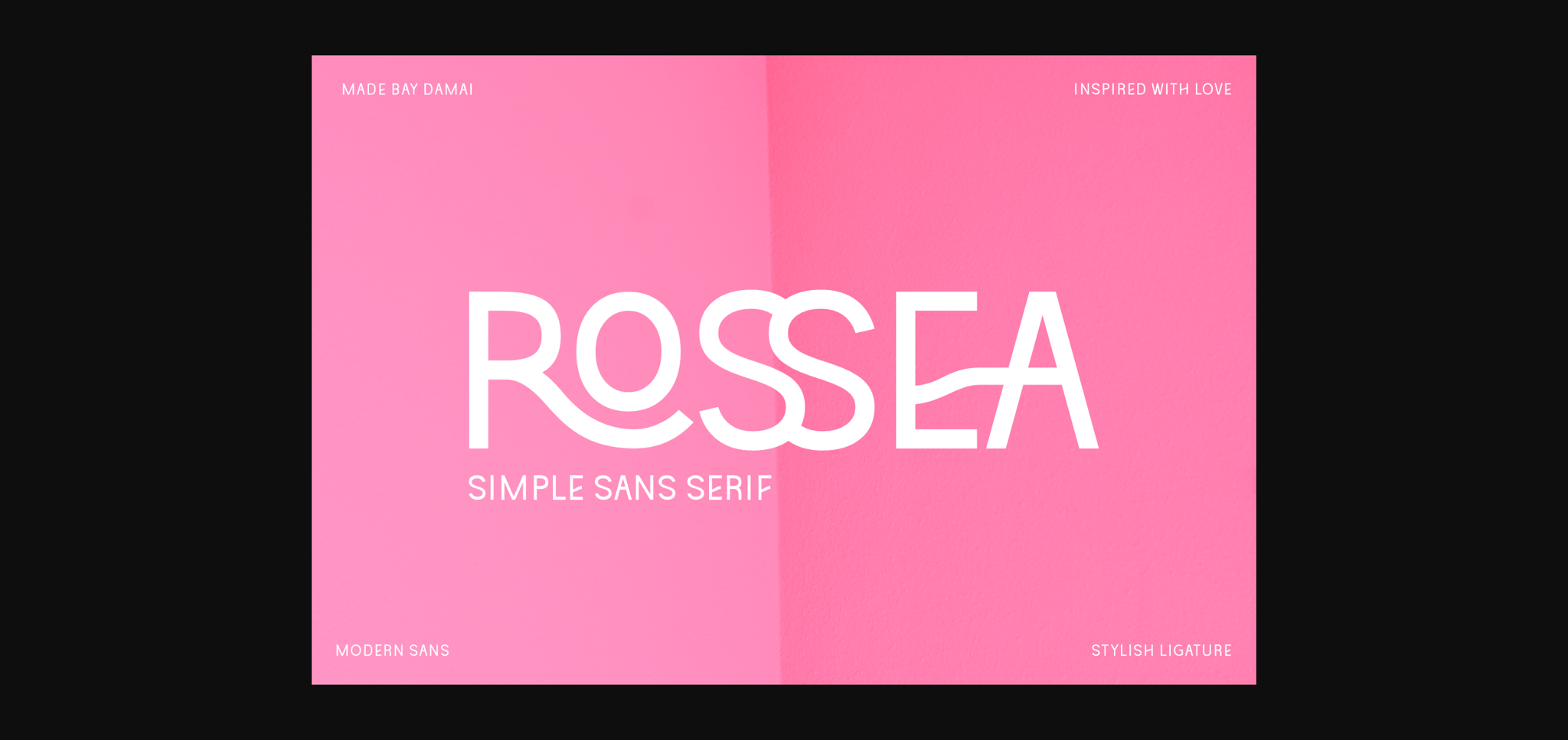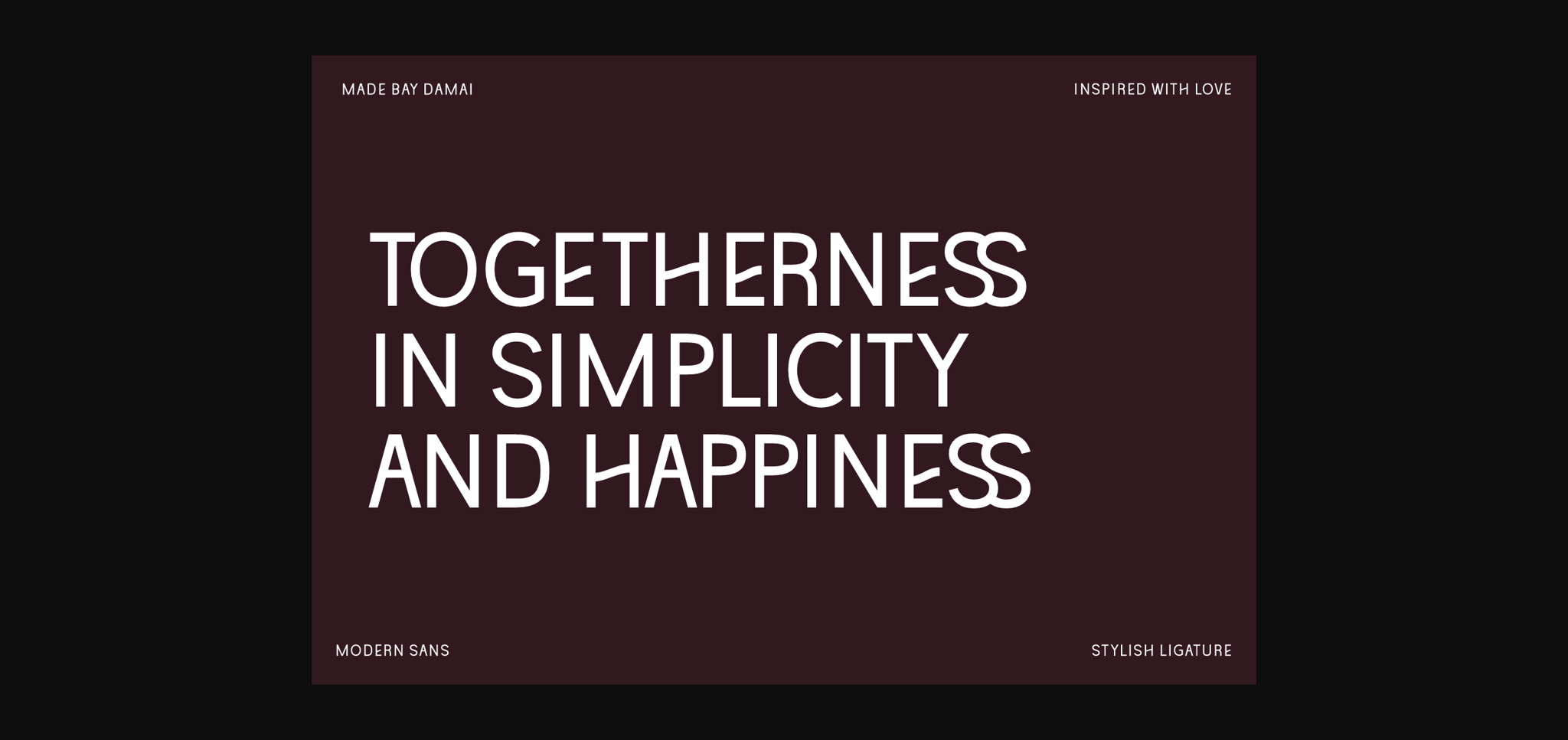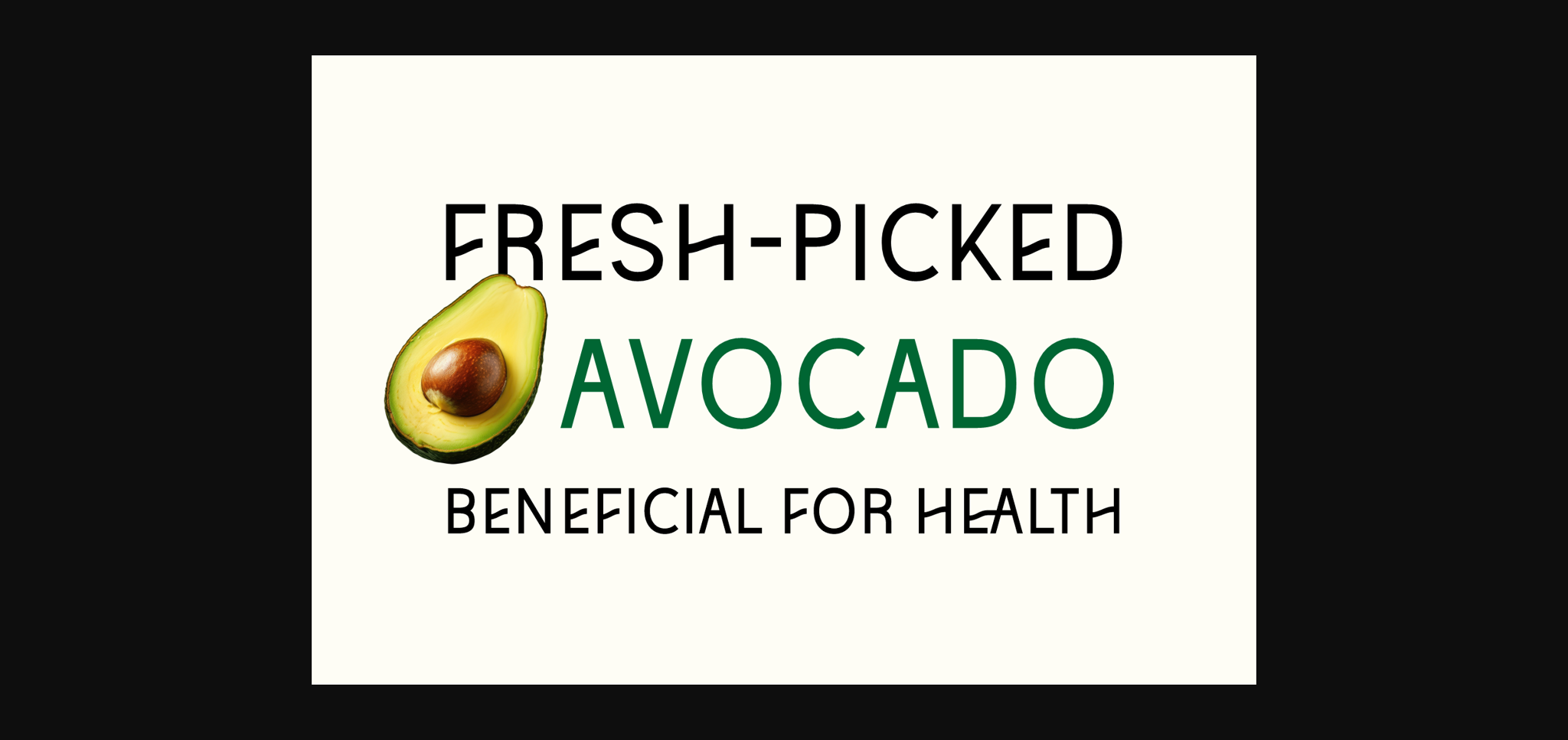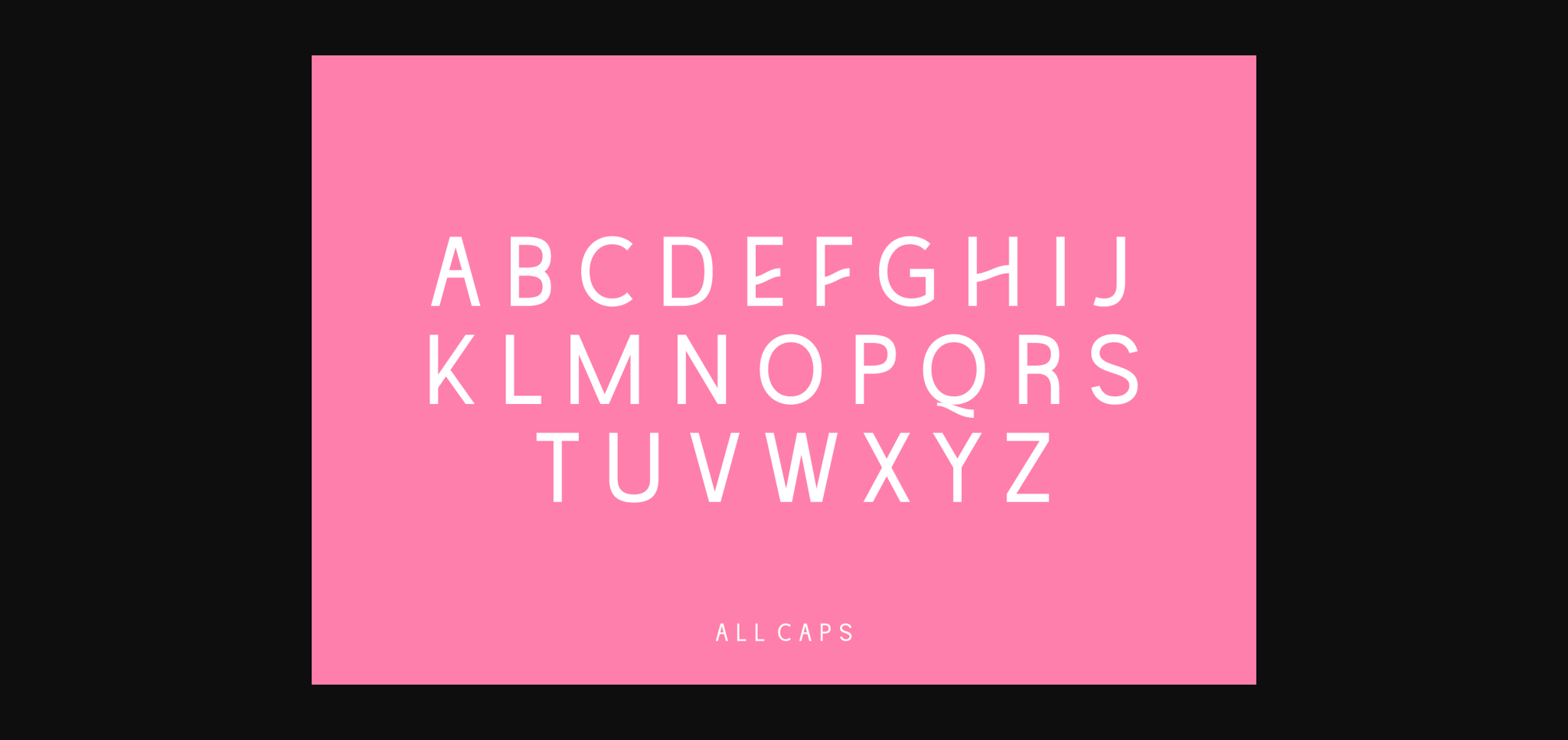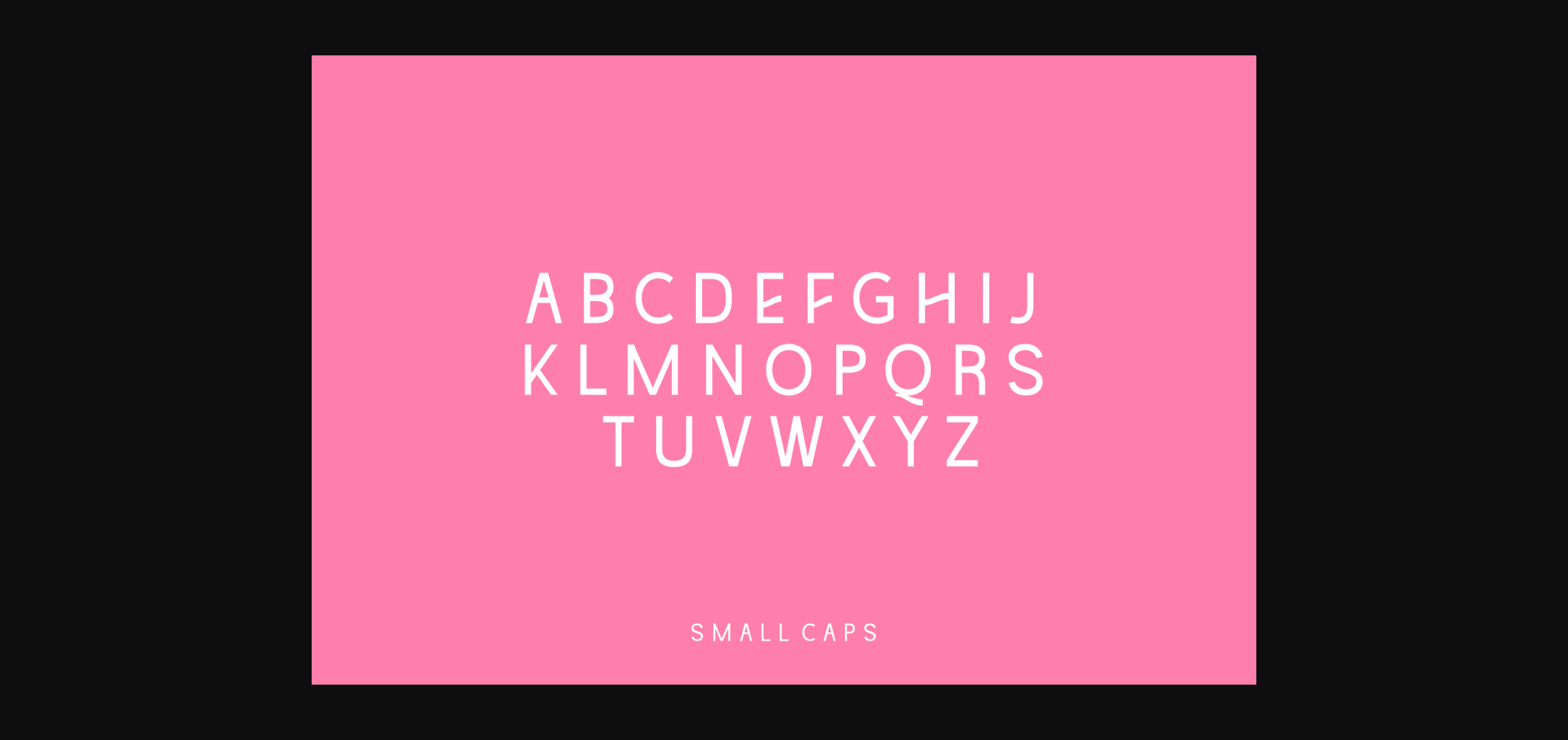
About Rossea Font
Rossea is a clean and straightforward sans-serif font, keeping things simple and modern. With its no-frills design, Rossea ensures clarity and readability in every project. Whether you’re creating a professional document or a minimalist graphic, this font adds a touch of simplicity and sophistication. Easy on the eyes and versatile in application, Rossea is the ideal choice for projects that demand a straightforward and contemporary look.